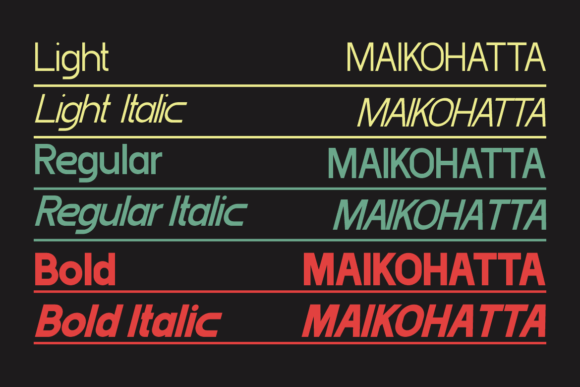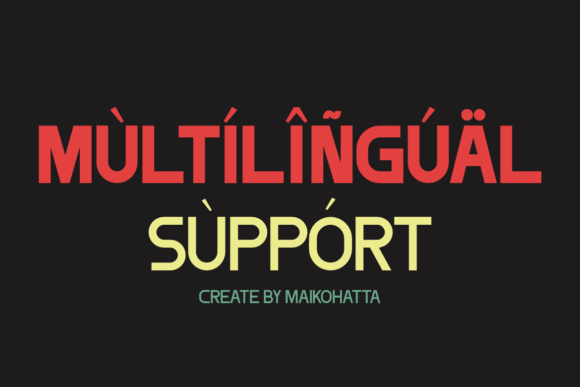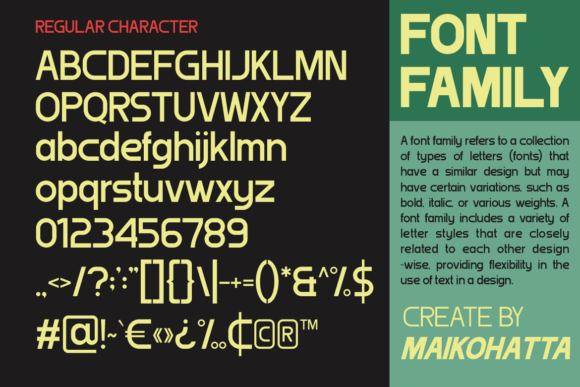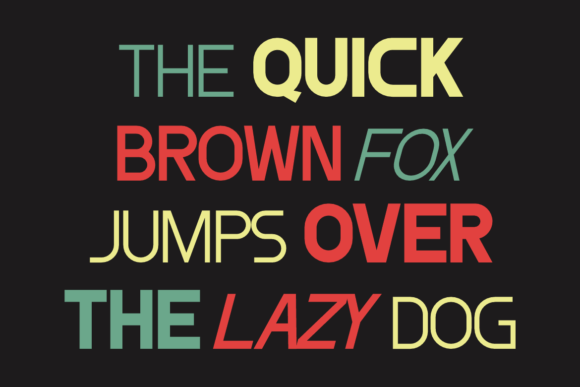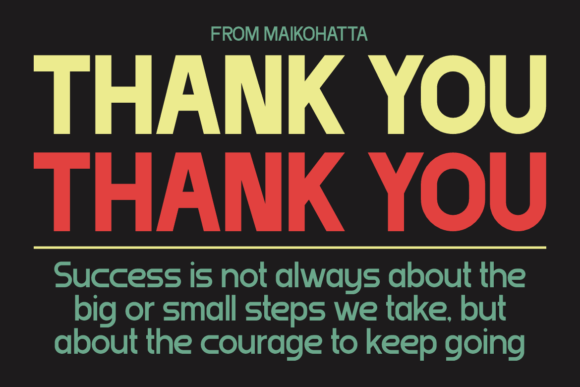
The Ultimate Guide to Bansed Font: Elevate Your Design with Versatility
What is Bansed Font?
The Bansed Font is a highly versatile sans-serif font family available in various styles, making it an excellent choice for graphic design and clean, modern text displays. Its flexibility allows you to customize the appearance of text to suit your project’s needs, creating attractive and easy-to-read text displays in various contexts.
My Honest Review
So, what do I love about the Bansed Font? Here are a few highlights:
- ✨ Variety of styles: The Bansed Font comes in multiple styles, allowing you to experiment with different looks and feels.
- ✅ CLEAN and MODERN: The font’s clean and modern design makes it perfect for projects that require a sleek look.
- 💡 Highly legible: The font is easy to read, even in small sizes, making it ideal for body text.
While the Bansed Font is an excellent choice, it’s not without its quirks:
- 🤔 Limited support for non-English characters: If you’re working on a project that requires support for non-English characters, you might want to explore other options.
- ⚠️ Some styles may not be suitable for body text: While the font is generally legible, some styles might be better suited for headings or titles.
The Bansed Font was designed with inspiration from modern sans-serif fonts and a passion for clean, elegant design. Its creator aimed to craft a font that would be versatile, legible, and beautiful, making it perfect for a wide range of design projects.
| What is the Bansed Font? | The Bansed Font is a sans-serif font family available in various styles, designed for graphic design and clean, modern text displays. |